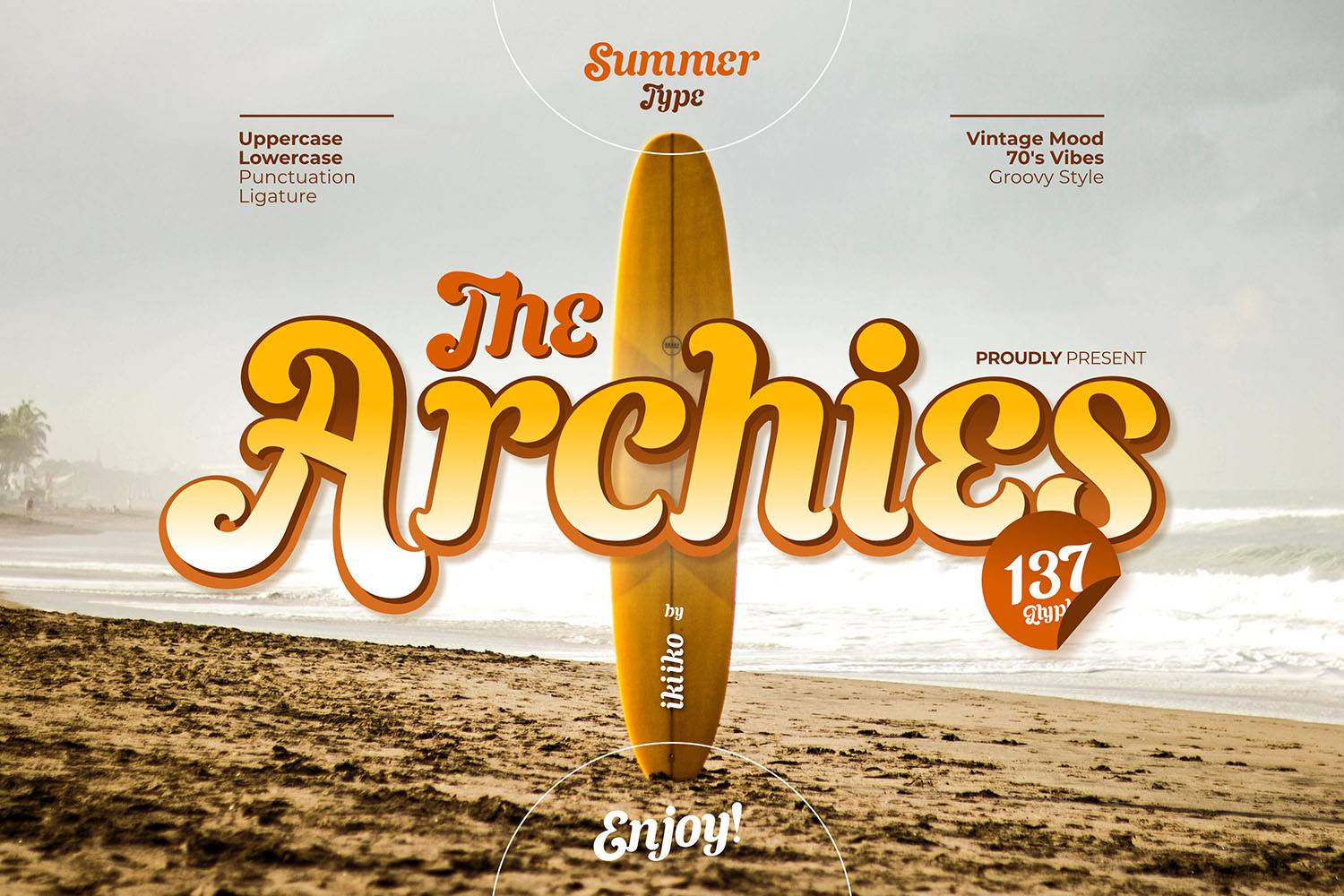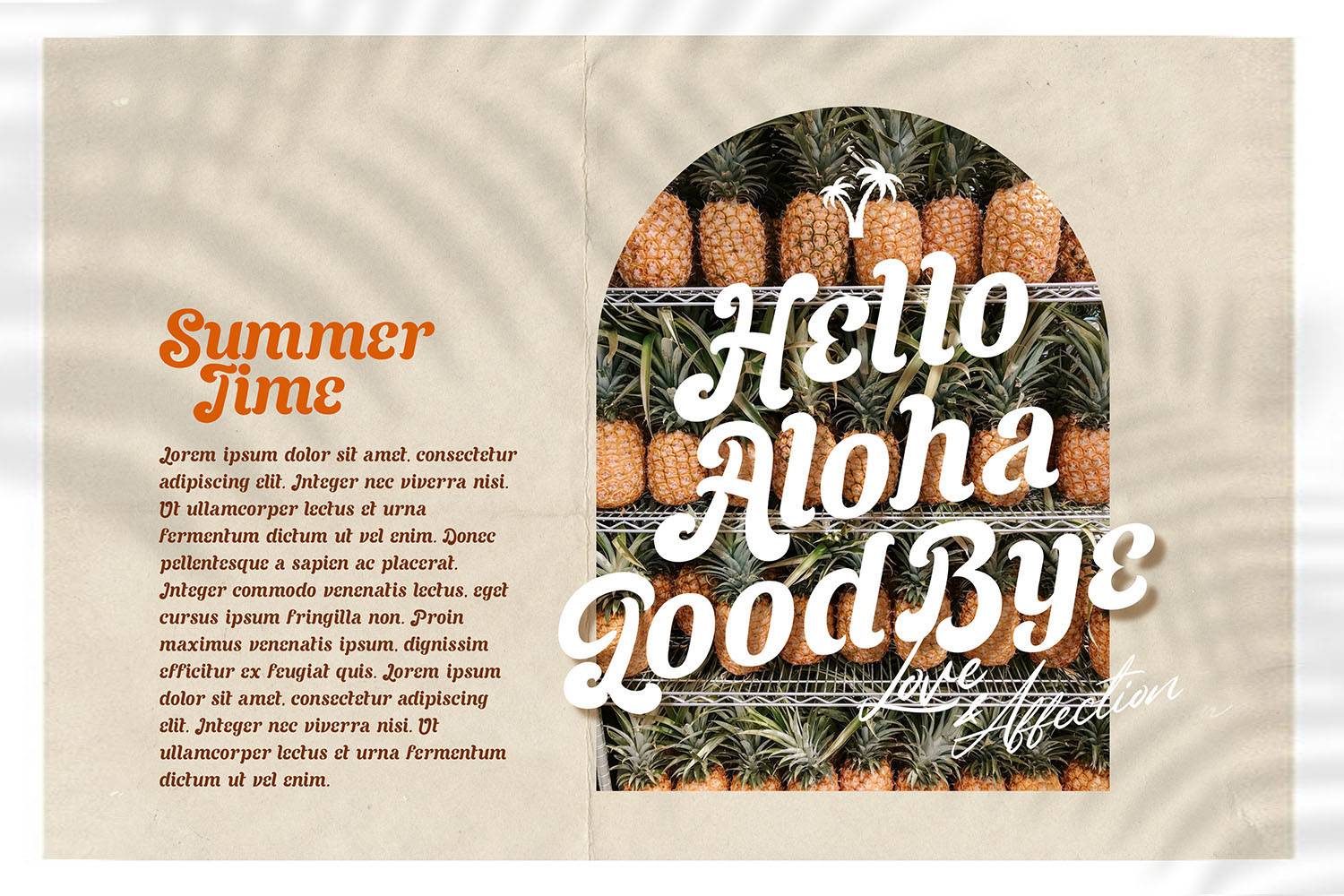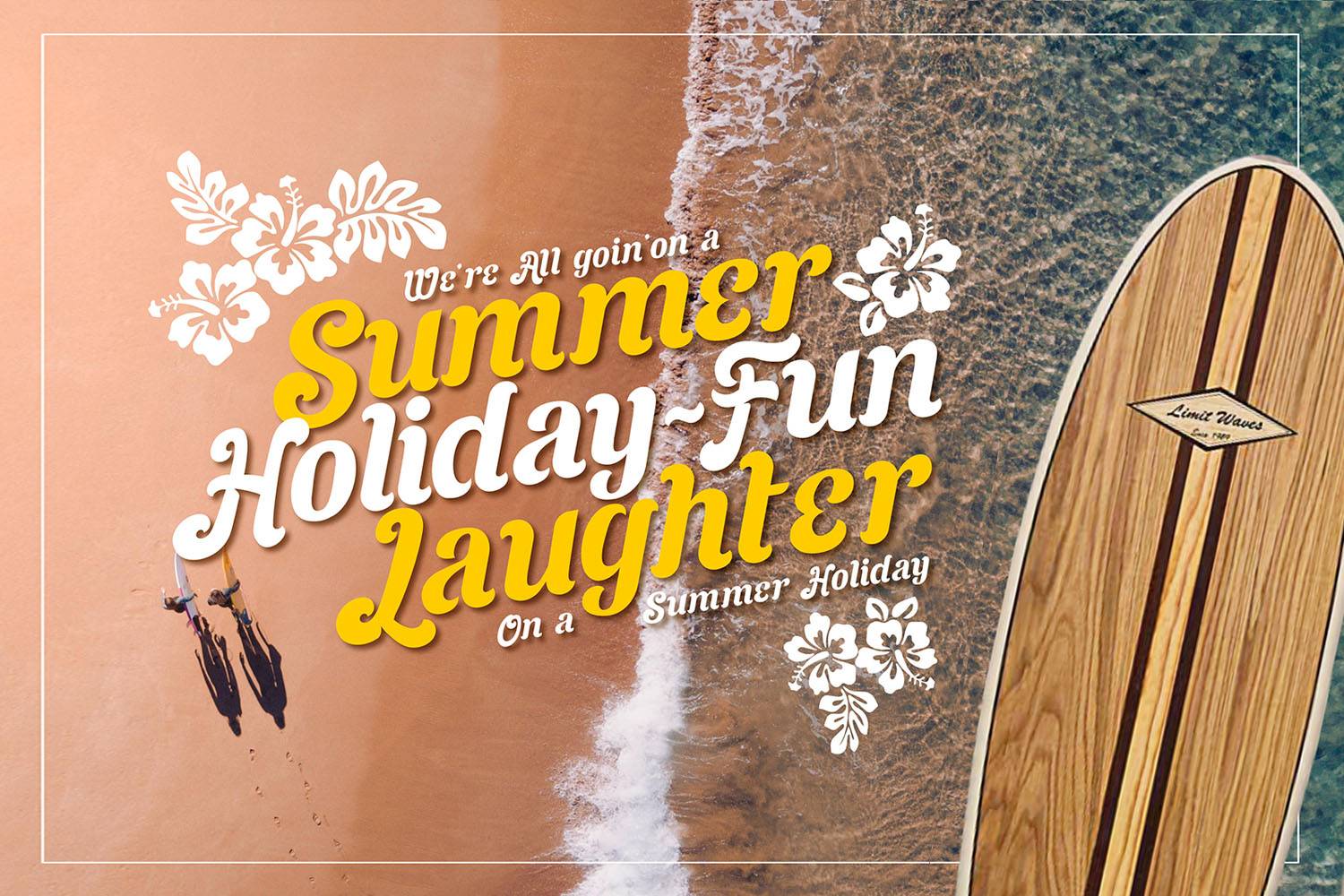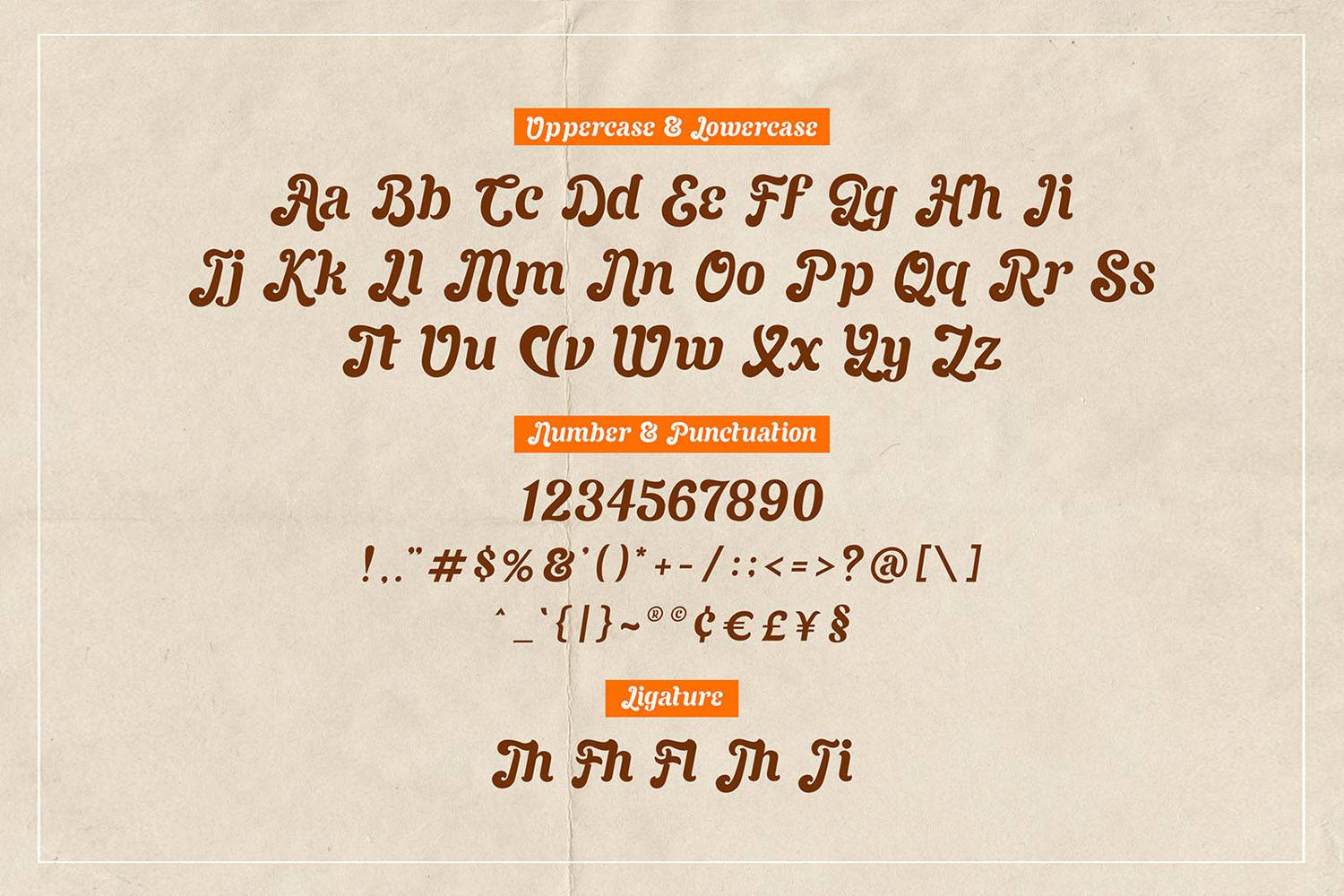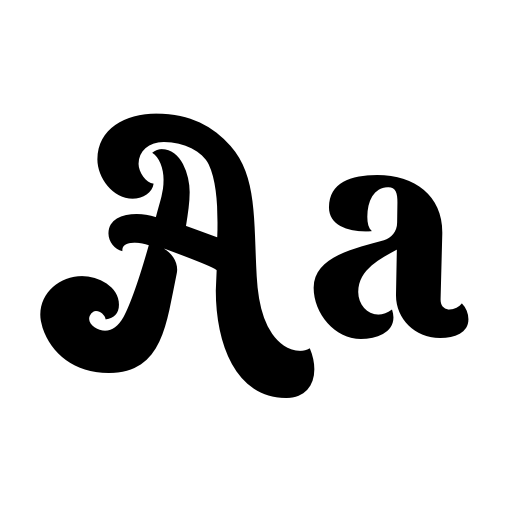
The Archies Font is a bold, decorative serif typeface with playful, rounded shapes and strong contrast between thick and thin strokes. Its whimsical and vintage-inspired character makes it perfect for eye-catching headlines, logos, and packaging that aim to evoke a fun, retro, and friendly vibe. This distinctive font works especially well for brands and projects in entertainment, children’s media, and creative industries seeking a lively and nostalgic touch.
The Archies Font
About The Archies Font